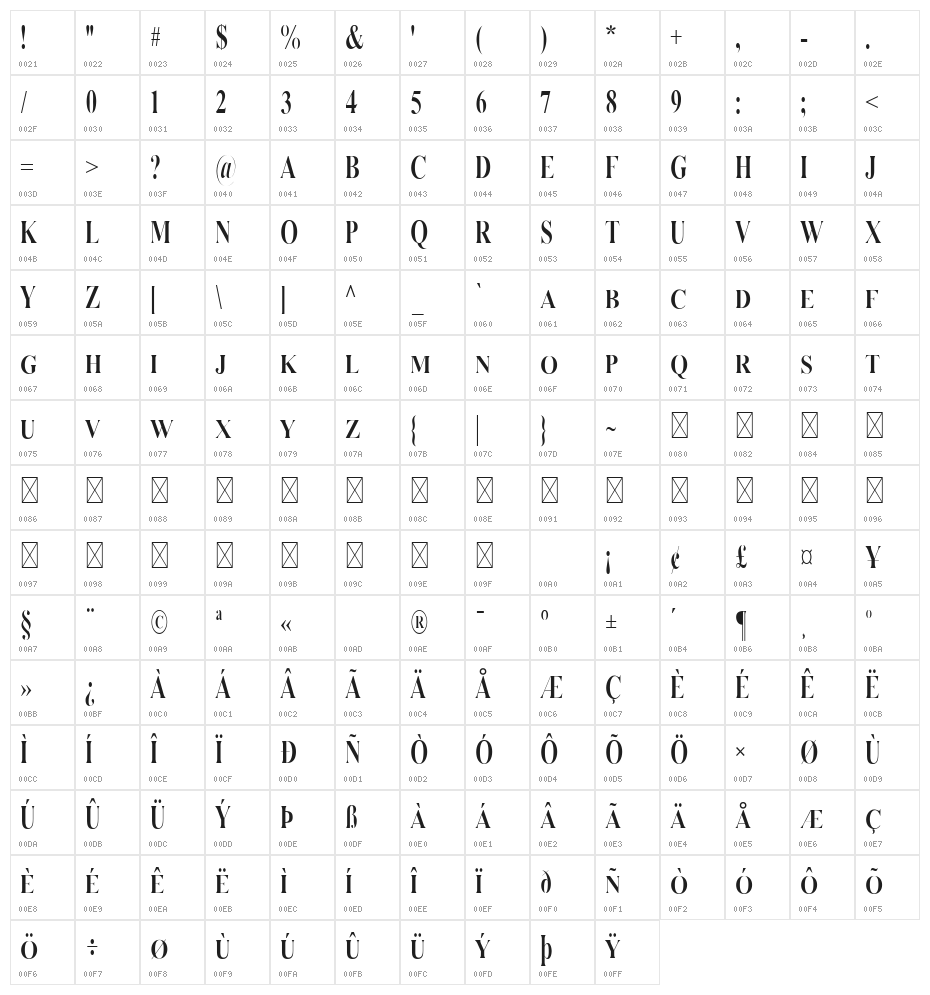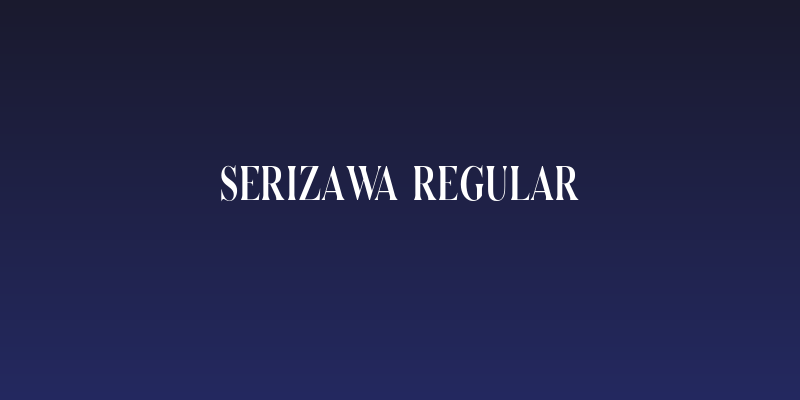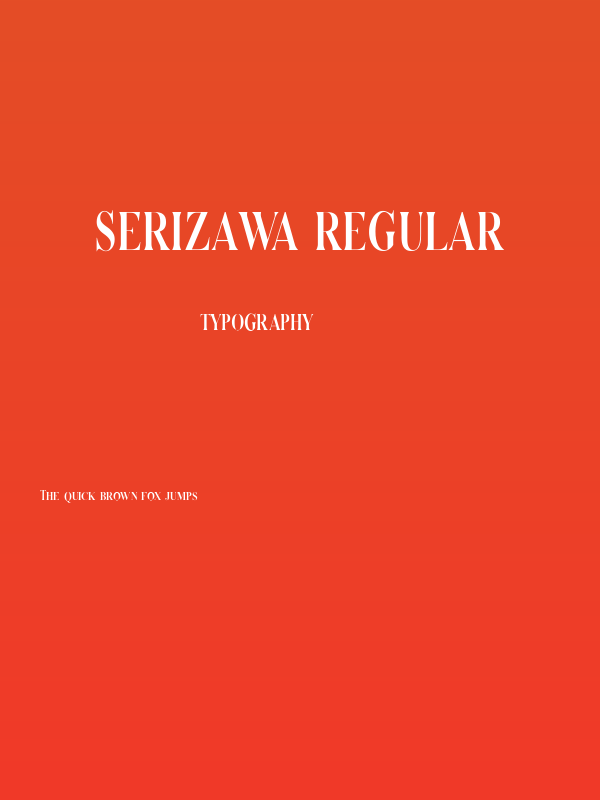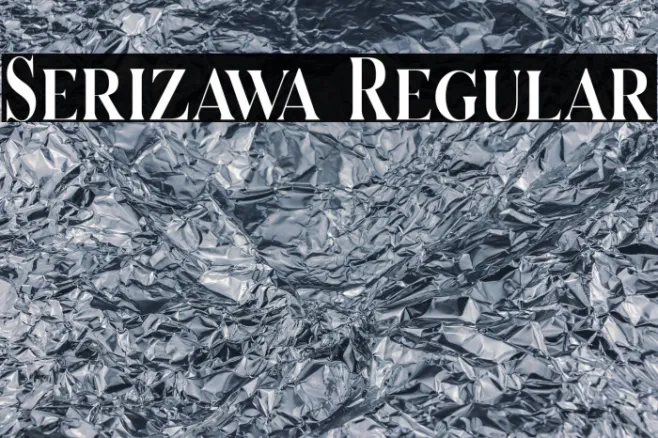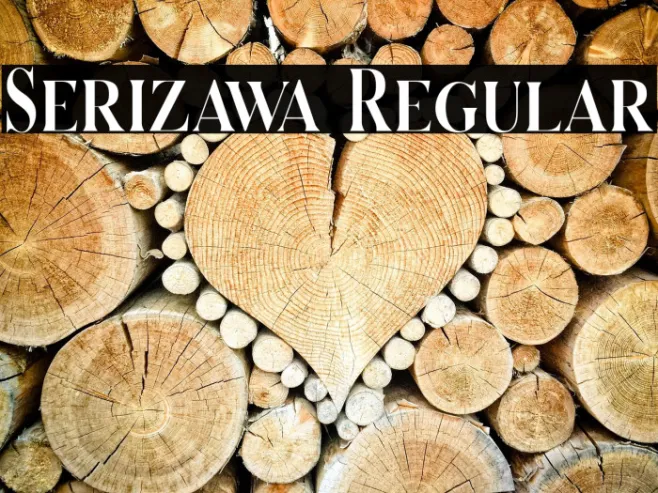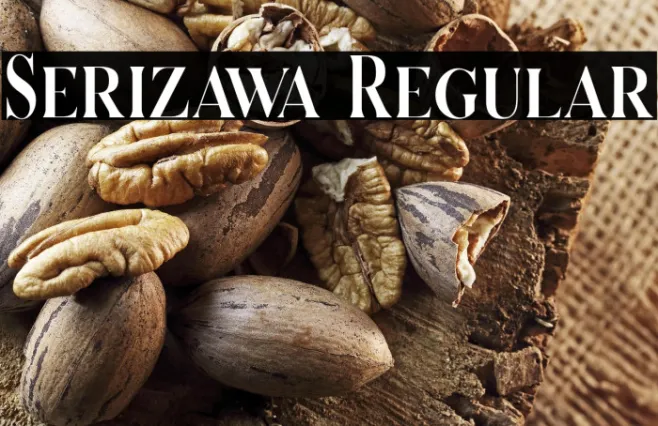
Serizawa Regular Font
Serizawa Regular Description
This font features a bold and dramatic serif style, characterized by its high contrast between thick and thin strokes. The serifs are sharp and pronounced, giving it a classic yet modern appeal. The uppercase letters are tall and commanding, while the lowercase letters maintain a consistent style that complements the overall design. The numerals are equally bold, ensuring readability and impact. Special characters are designed with the same attention to detail, making them suitable for a variety of uses. The font's elegant and sophisticated appearance makes it ideal for projects that require a touch of class and authority.
| Use Case | Headlines, Logos, Editorial Design |
| Proposed Projects | Ideal for luxury branding, editorial design, book covers, and high-end product packaging. |